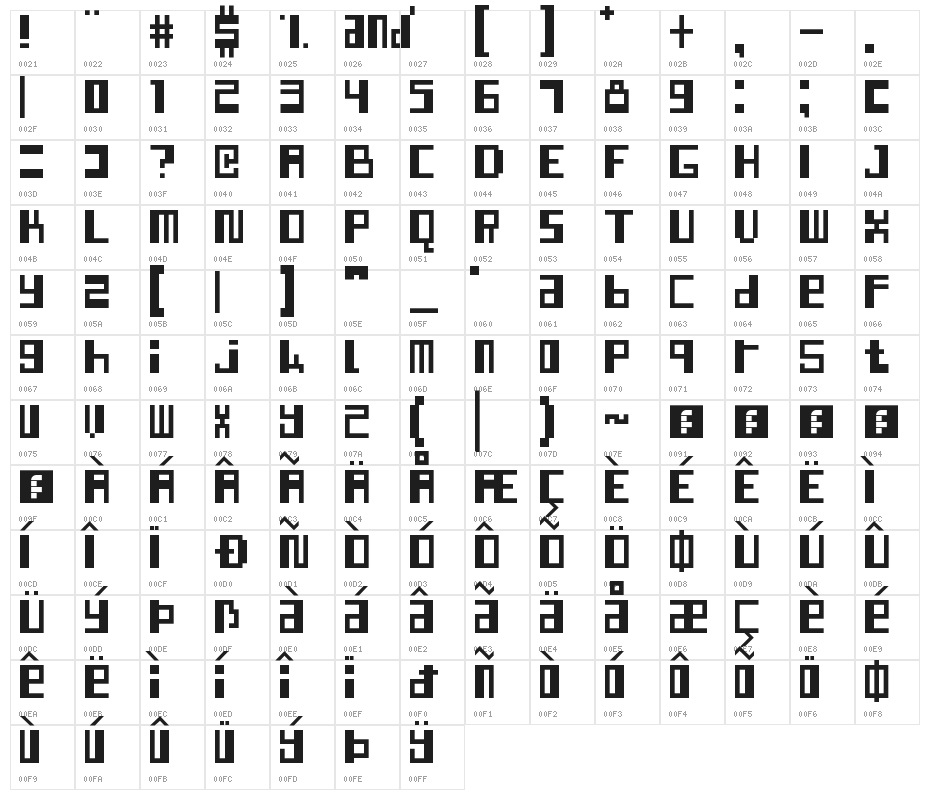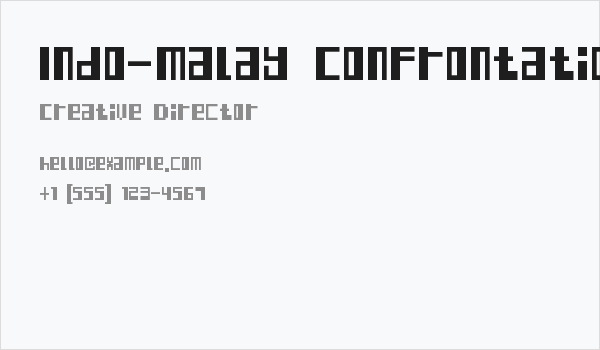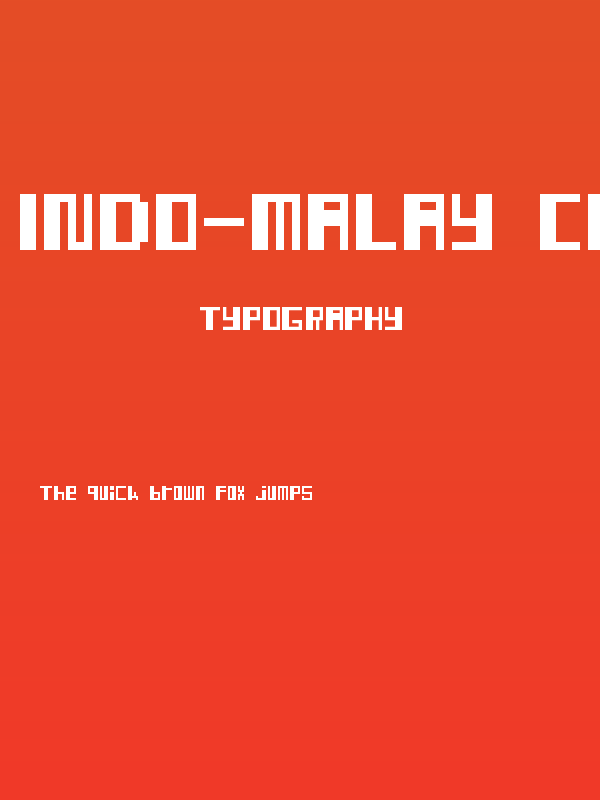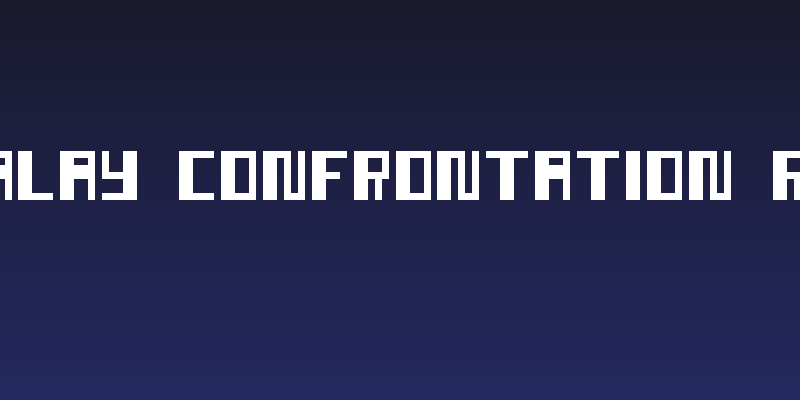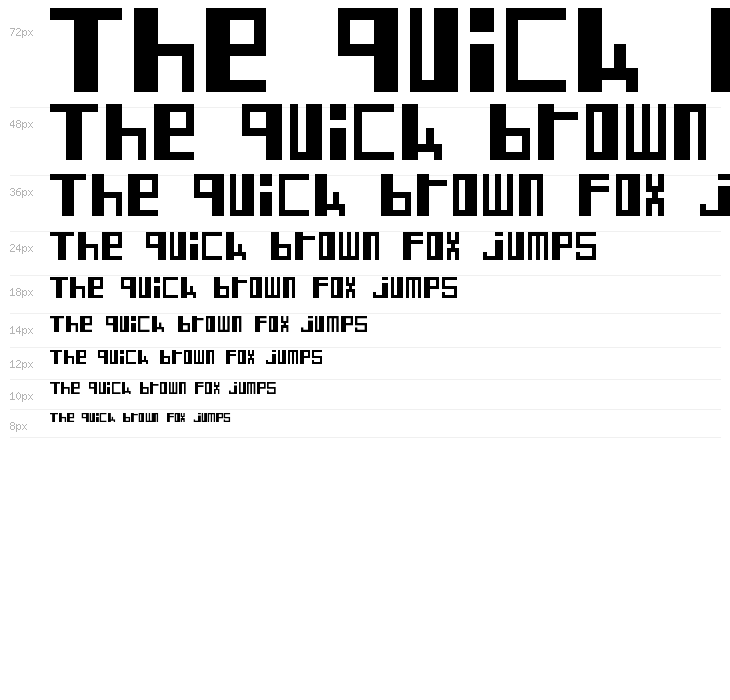
Indo-Malay Confrontation Regular Font
Indo-Malay Confrontation Regular Description
This font features a bold, geometric design with a strong presence. The characters are constructed with sharp, angular edges and a block-like structure, giving it a futuristic and industrial feel. The uppercase and lowercase letters maintain a consistent height, contributing to a uniform appearance. The numbers and special characters follow the same design principles, ensuring a cohesive look across all elements. The font's style is reminiscent of digital or technological themes, making it suitable for modern and edgy designs.
| Proposed Projects | Ideal for technology branding, video game titles, posters, and digital interfaces. |